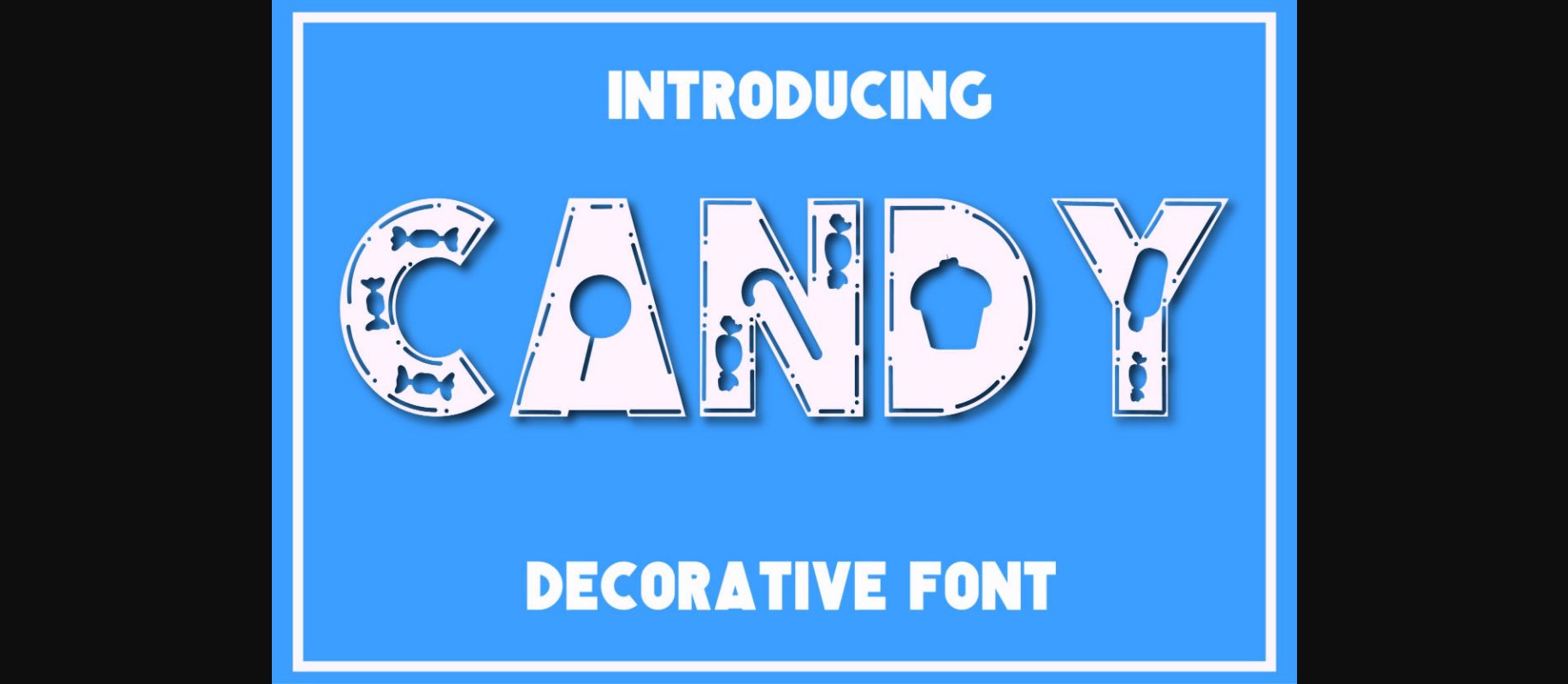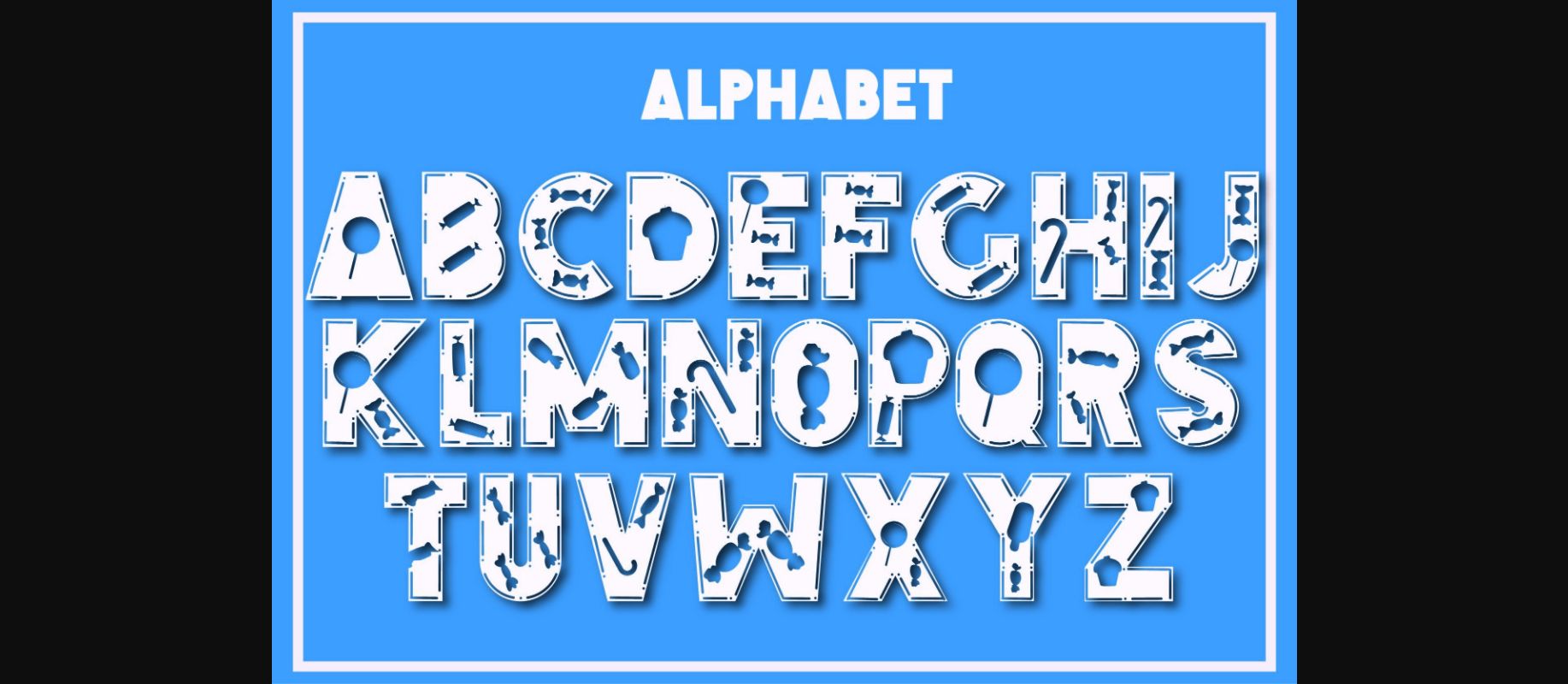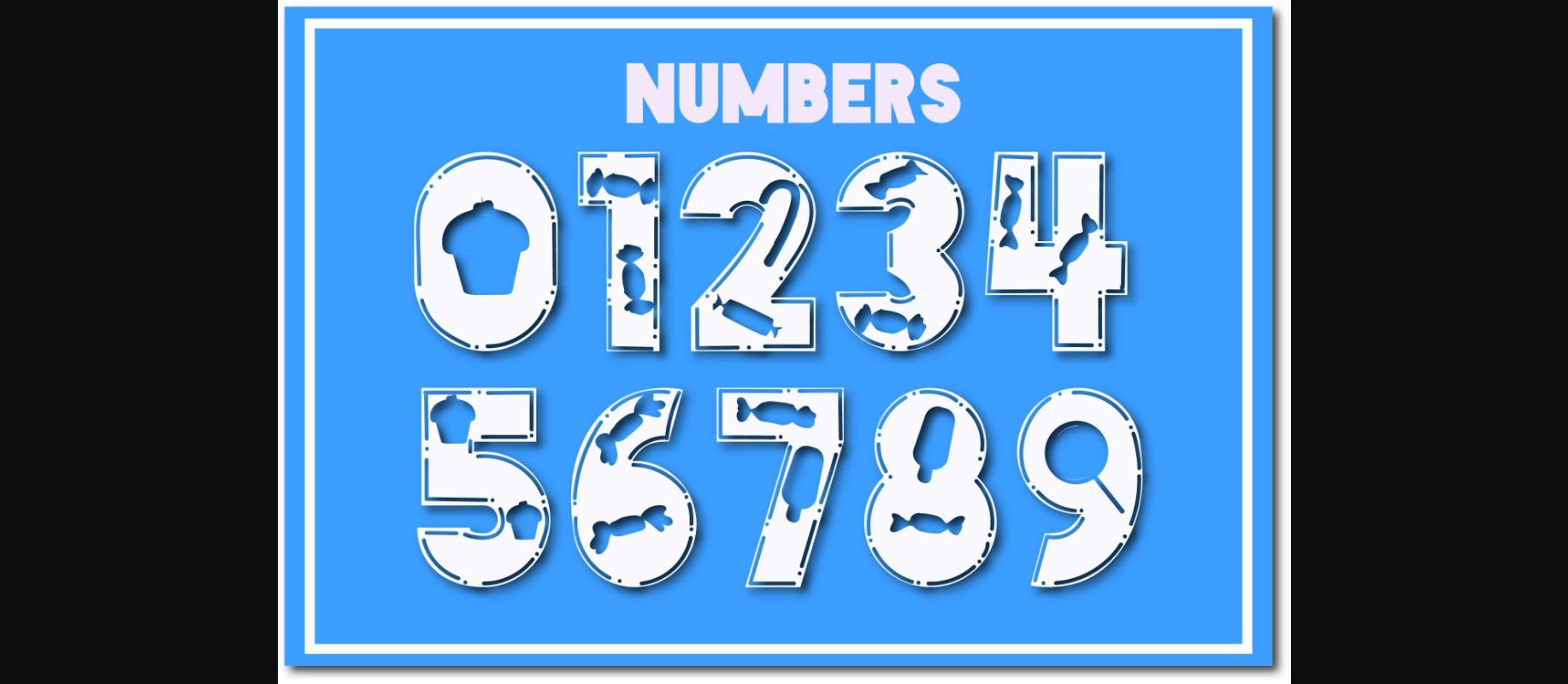
HomeDecorative FontsCandy Font Decorative Fonts Candy Font FacebookXPinterestWhatsApp 1 of 5 ... Candy Font Poster 2... Candy Font Poster 3... Candy Font Poster 4... Candy Font Poster 5... About Candy Font Candy is a cute and lovely decorative font. Whatever the topic, this font will be a wonderful asset to your font library, as it has the potential to enhance any creation. DOWNLOAD NOW People also explored Better Spine Font Fadhista Rosegold Font Phistop Font Almondo Font Sigennate Font Hastungkoro Duo Font Sweet Memories Font Valentine Font 293 0 TagsCandyCandy Font Previous articleThanksgiving FontNext articleGood Dog Font LEAVE A REPLY Cancel reply Comment: Please enter your comment! Name:* Please enter your name here Email:* You have entered an incorrect email address! Please enter your email address here Website: Save my name, email, and website in this browser for the next time I comment. Personal Use Free Hanberra Personal Use Free Read more about this font Remember Personal Use Free Read more about this font Happy Santa Personal Use Free Read more about this font Austin Personal Use Free Read more about this font BLOG Free Fonts Risk: Why Free Fonts Can Be Dangerous for Designers Free Fonts Risk: Why Free Fonts Can Be Dangerous for Designers Using free fonts is a common practice in web and graphic design. However, the... Modern Sans-Serif Fonts That Brands Love in 2025 How to Install and Use Fonts on Windows, macOS, and Web Projects Where to Buy American Fonts Online in 2024